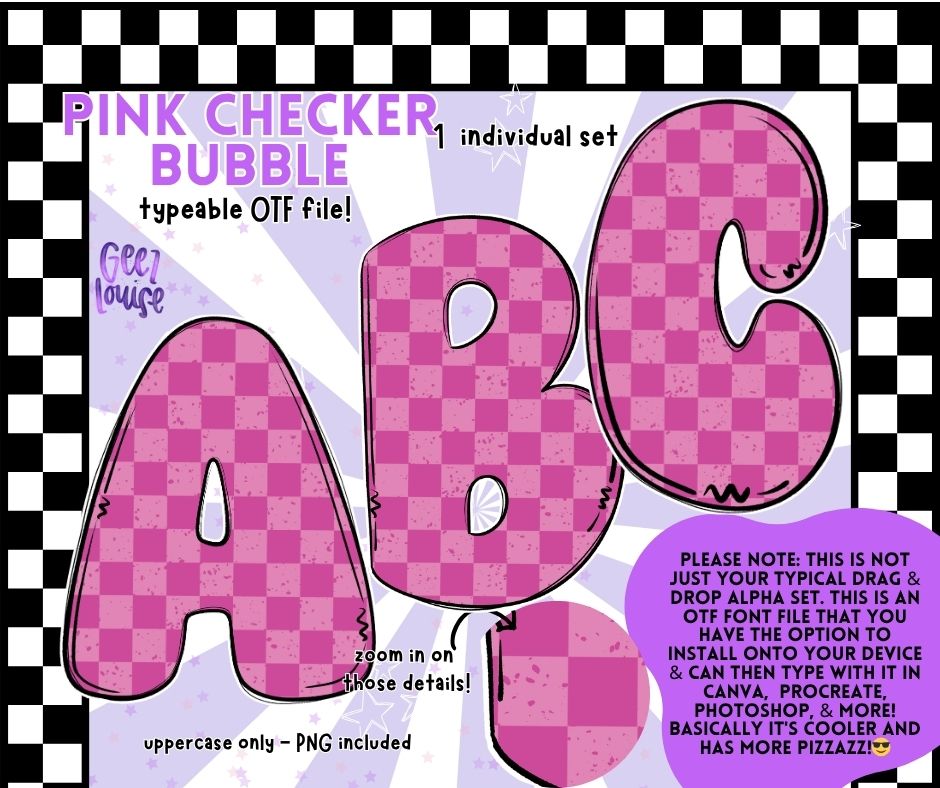
Pink Checker Bubble – Bold Typeable OTF Font + PNG Alpha Set
The Pink Checker Bubble font brings that nostalgic Y2K checkerboard charm in a soft pink hue—perfect for standout school designs, girly grunge bundles, or just when you need a little pop of pretty! 💕
• Bubble-style lettering with a vibrant pink checker pattern